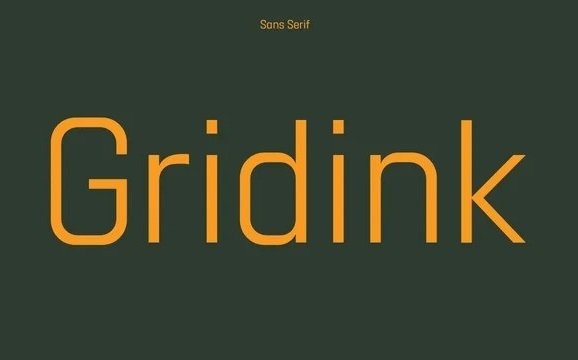
Gridink Font
Gridink Sans Serif Font gives your words a powerful sound as well as fun to use. Made from font designer named Ckhans Fonts. It comes in 9 weights, 18 uprights and its matching italics, patterns, so you can use them to your heart’s content. Designed with powerful opentype features in mind. Each weight includes extended language support, fractions, tabular figures, arrows, ligatures, icons and patterned.
Gridink family consists of 19 styles (9 weights, 9 Italics and 1 patterns), in each of which there are more than 940+ glyphs. In the typeface, each weight includes extended language support, fractions, tabular figures, arrows, ligatures and more. Perfectly suited for graphic design and any display use. It could easily work for web, signage, corporate as well as for editorial design. documents and folders, mobile interface.